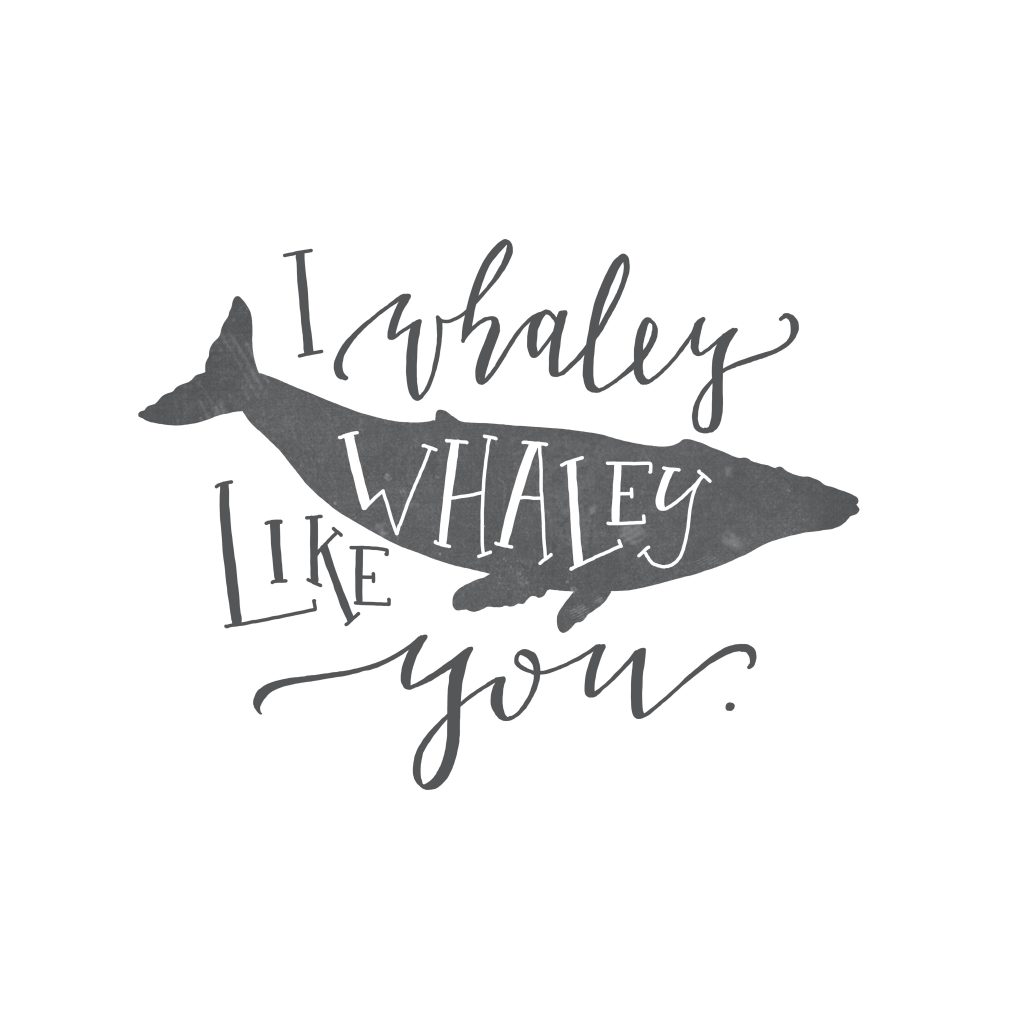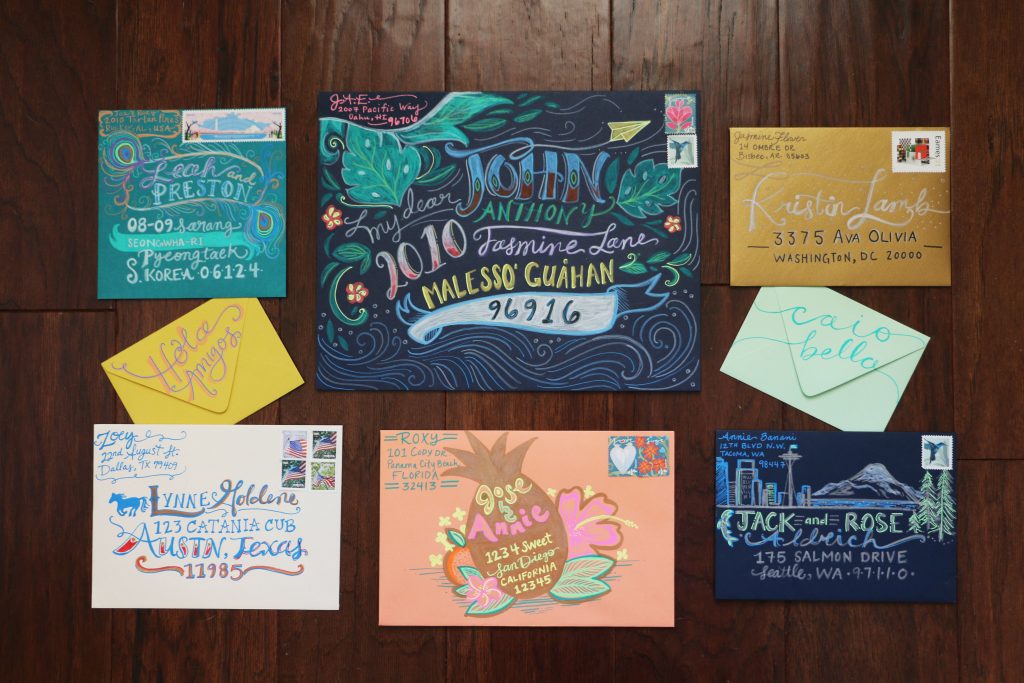
An exciting book has just been introduced into the lettering world titled 'The Joy of Lettering: A creative exploration of contemporary hand lettering, typography & illustrated typeface'. The book is authored and illustrated by lettering artists Gabri Joy Kirkendall and Jaclyn Escalera. Gabri Joy also co-authored one of my favourite books 'Creative Lettering and Beyond'.
Gabri Joy runs a successful business specialising in hand lettering and illustration. She has developed skills using a range of mediums and has a very beautiful and recognisable style of lettering. Gabri Joy creates custom lettering, branding, prints, wedding stationary and more.
Jaclyn Escalera is based in Texas and runs a business called JAE Creative Company. Jaclyn has lived in a number of places and gained wisdom from her travels. She has small business branding experience along with experience in non-profit and corporate design.
'The Joy of Lettering' book contains a fantastic collection of information about almost everything you could want to know as a beginner lettering artist. The book begins with an introduction on lettering, which includes a really great timeline highlighting significant points in the history of lettering and type. It is refreshing to view an illustrated timeline, as often when learning about the history of lettering there can be a lot of information and it can sometimes seem a bit overwhelming. The timeline just highlights key points in history, making it easy to go off and do further research if you want to. After the introduction, the book moves on to clear sections like Stylized Typography, Lettering Techniques and Lettering with Alternative Media. These are all broken down into smaller sections again making the book easy to come back to, for example, to learn a specific technique or style.
This book is not just specifically for beginners either, although a great companion for any beginner it also covers a lot of different styles and techniques like paper cutting, using foils and creating your own typeface. So the chances are whether you're a beginner or whether you've been lettering for a little while there will be something inside that will inspire you. I've discovered a few new styles and techniques from this book that I will be putting into action.
Similarly to the 'Creative Lettering and Beyond' book 'The Joy of Lettering' book also includes many step by step tutorials. They are great fun to follow along with and will have you applying 3D effects to your lettering, using a variety of illustrative lettering techniques, digitising your lettering and more. The steps are well defined and there is always a 'Materials' list at the start of each tutorial so you know exactly what tools you need before you get started. Each section doesn't go into intricate descriptive detail but provides enough information to give you a great starting foundation for building many different types of skills within lettering. I can highly recommend this book, and I think it will be a useful asset to many.